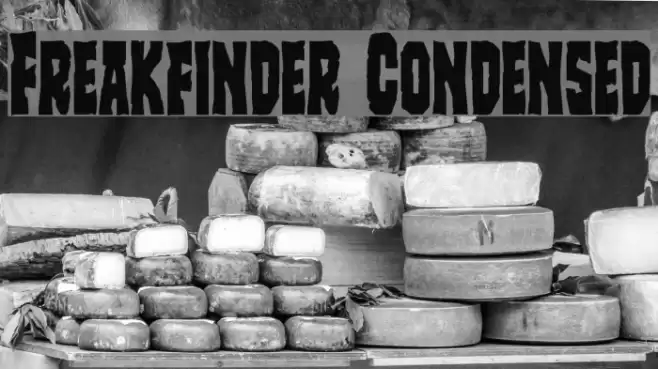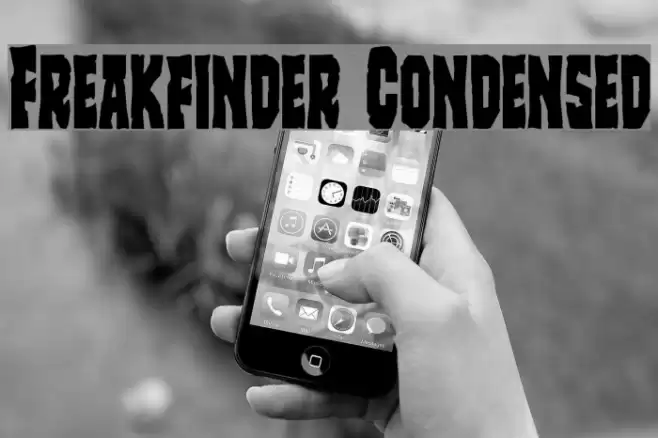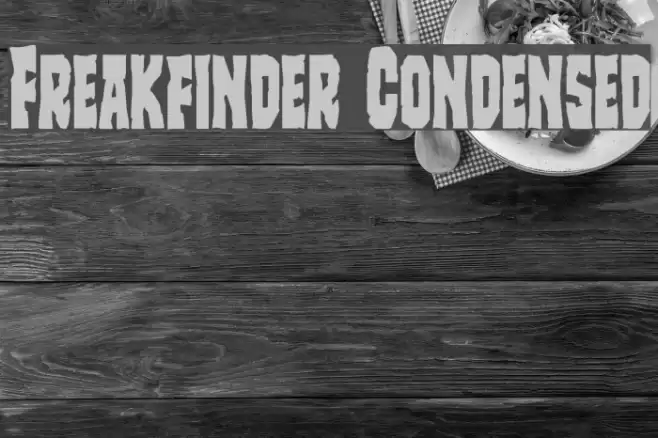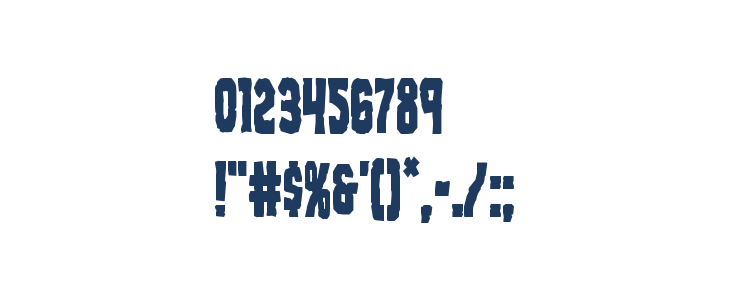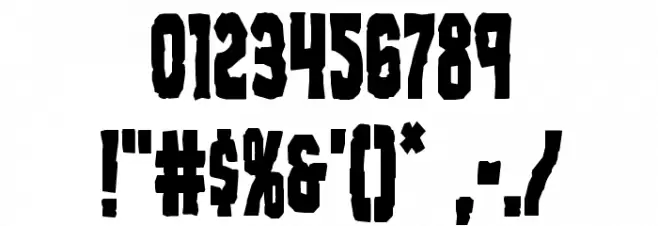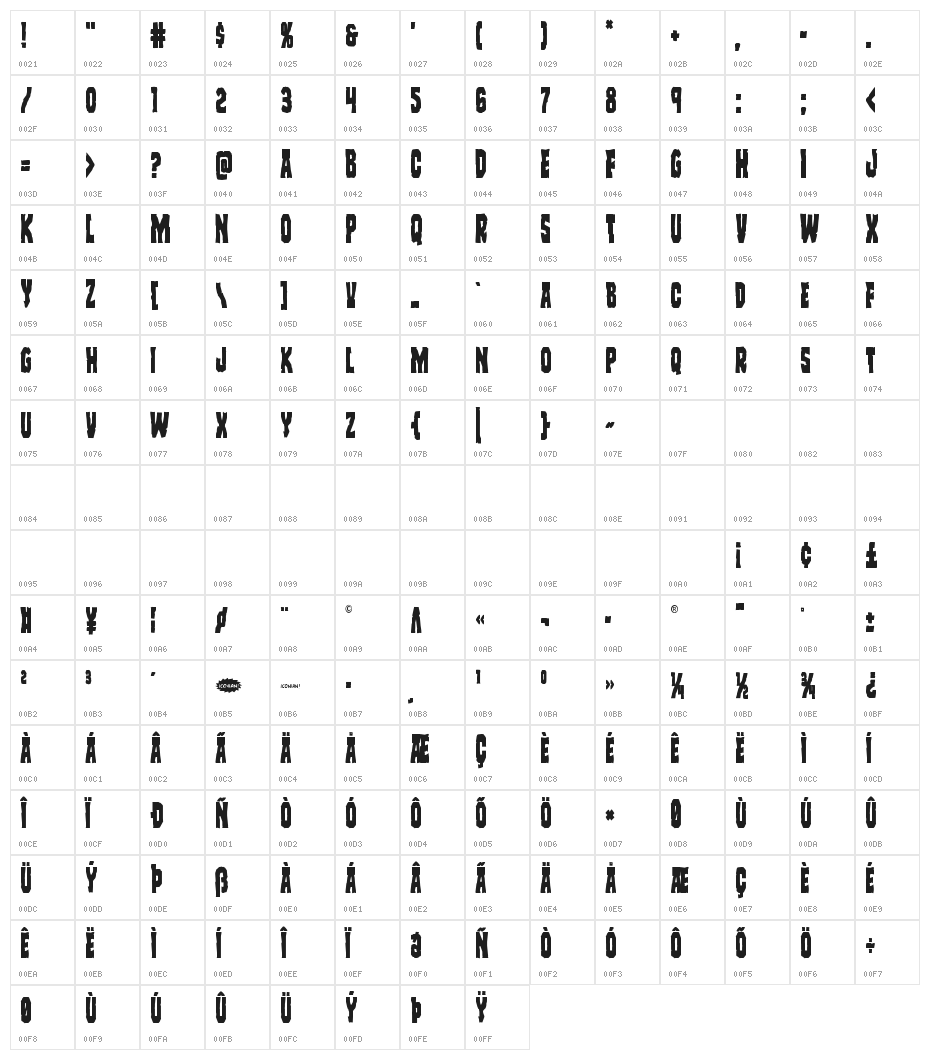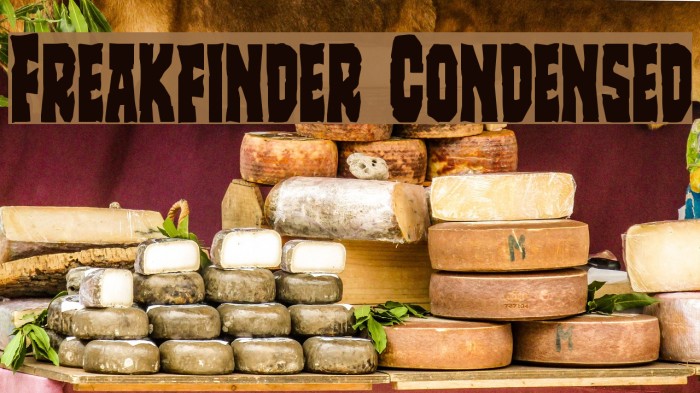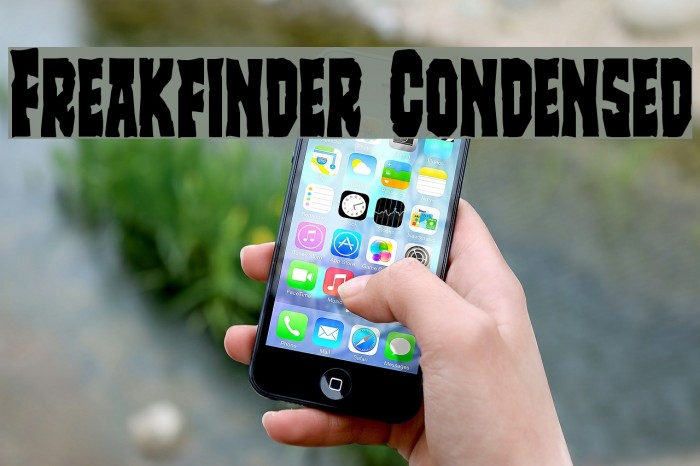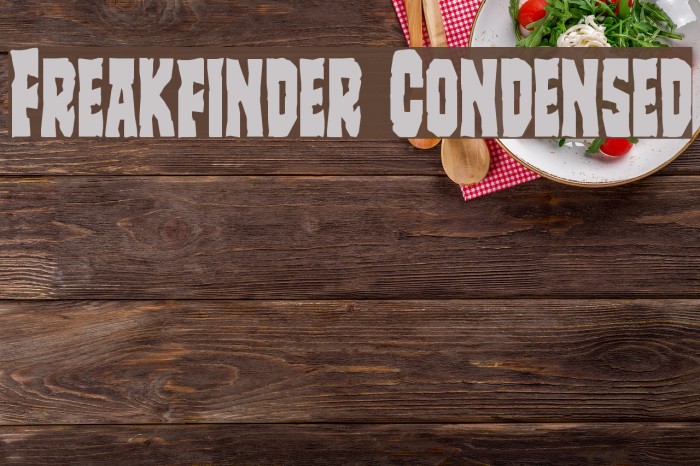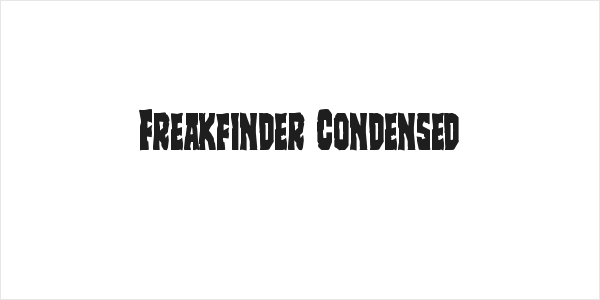
Freakfinder Condensed Font
Freakfinder Condensed Description
This font features a bold and condensed style with a rugged, distressed appearance. The characters are blocky and heavily stylized, giving them a unique, edgy look. The uppercase and lowercase letters maintain a consistent height, contributing to a uniform appearance. The numbers and special characters follow the same bold, condensed style, ensuring cohesion across all characters. The font's design is reminiscent of vintage horror or thriller themes, making it ideal for projects that require a dramatic and eye-catching typeface.
A bold, condensed font with a rugged, distressed style from Uncategorized fonts.
- Proposed Projects: Ideal for horror movie posters, Halloween event flyers, edgy branding, and themed merchandise.
- Character Spacing: Tight
- Overall Style: Vintage, Decorative